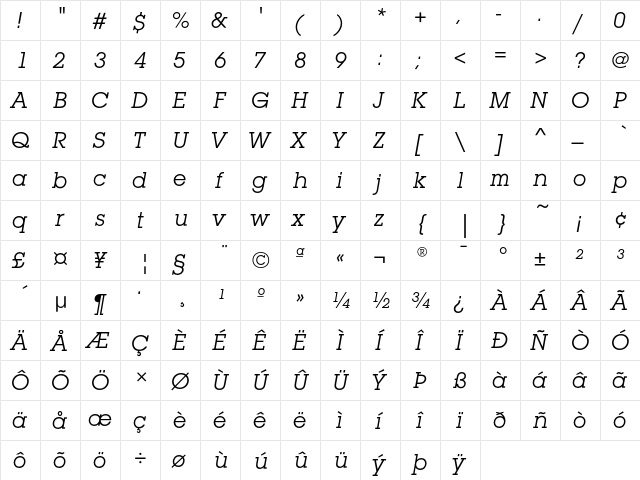
LubalinGraphEF BookOblique Font Preview
LubalinGraphEF BookOblique
Design Context for LubalinGraphEF Typeface
LubalinGraphEF offers clean, dependable letterforms without strong stylistic allegiance, making it a practical choice for designers who need flexibility. The dynamic lean of this cut emphasises speed and emphasis in any layout.
Pro Tip: Try LubalinGraphEF for annotation and caption copy alongside an upright companion — the contrast in angle creates a dynamic but ordered typographic system.